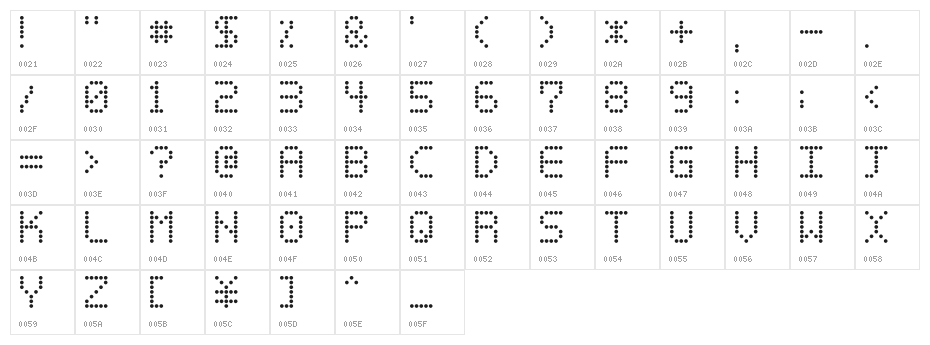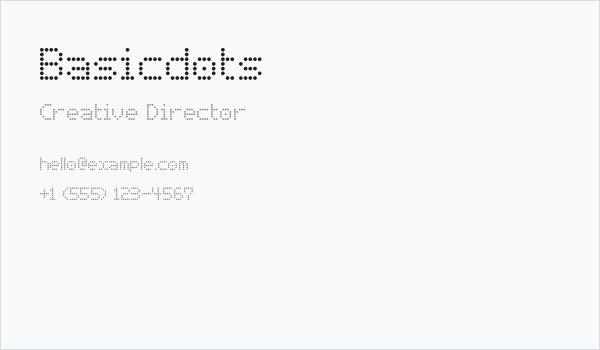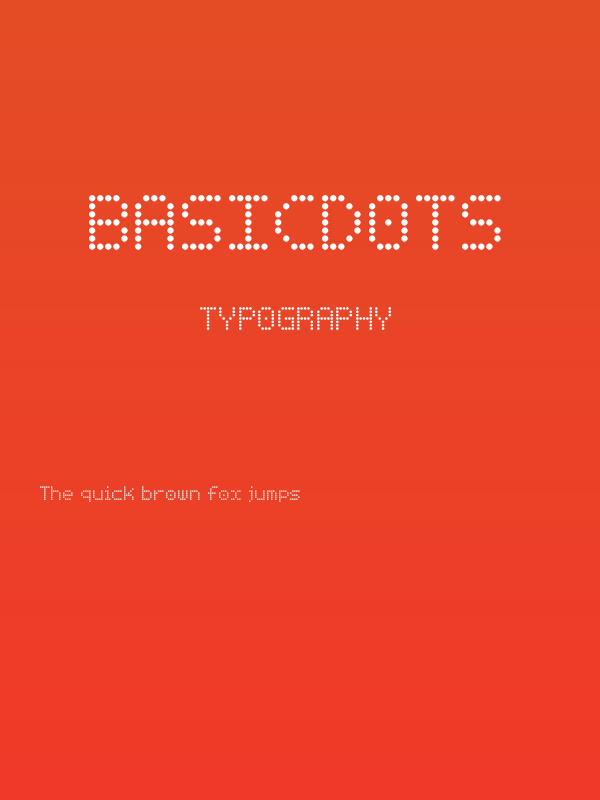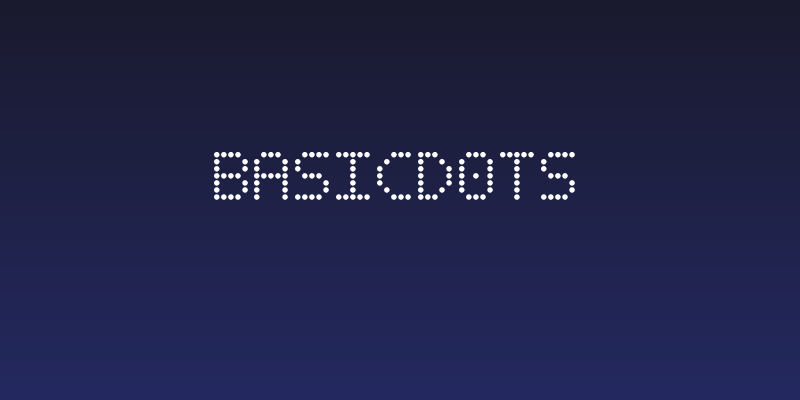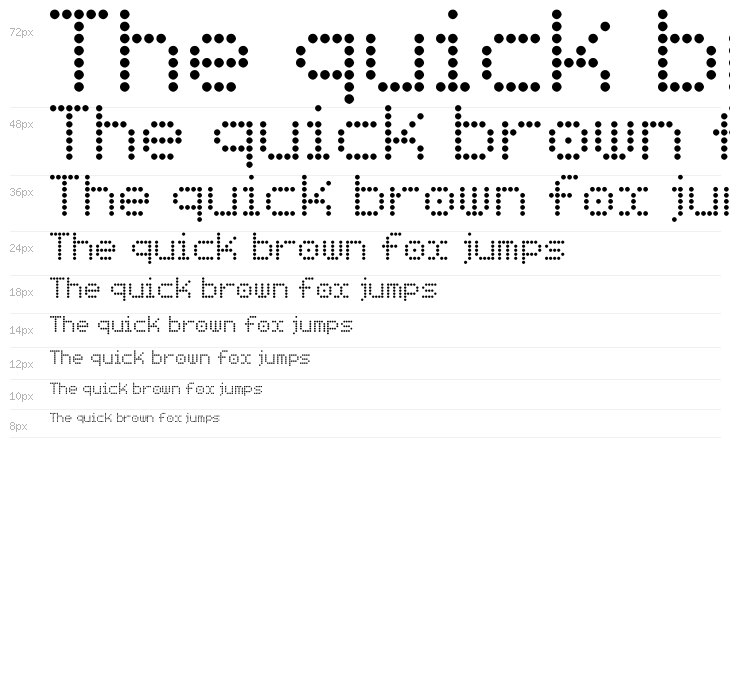
Basicdots Font
Basicdots Description
This font features a unique design where each character is composed of a series of evenly spaced dots, creating a digital and modern aesthetic. The characters maintain a consistent size and shape, giving the font a uniform appearance. The rounded dots provide a soft and approachable feel, while the structured arrangement ensures readability. This font is particularly eye-catching and can be used to convey a sense of technology or innovation. It stands out due to its distinctive style, making it suitable for creative and contemporary design projects.
| Use Case | Logos, Headlines, Digital displays |
| Proposed Projects | Ideal for digital displays, tech branding, modern art projects, and creative advertising. |